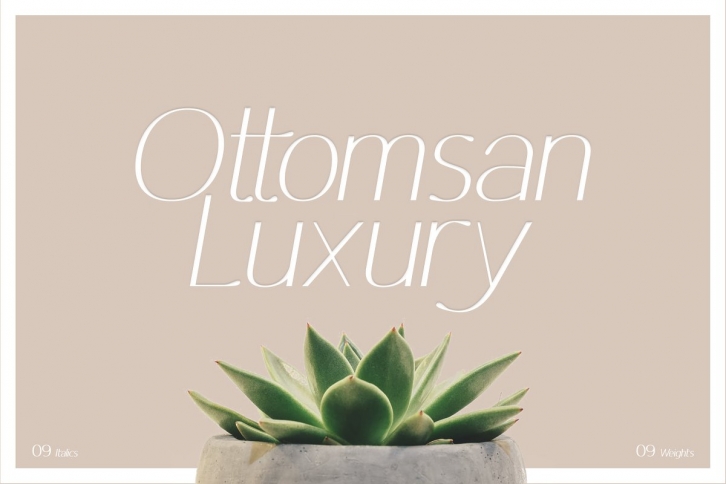
Ottomsan Luxury
Ottomsan is a modern Luxury typeface very much suitable for Film Posters, headlines, Wedding designs, display designs, Logo Designs, Big Banners. Classic & Decorative Typography Web Designs.
- 09 Font Weights
- 09 Italics Weights
- uppercase and lowercase letters
- multi-language support
- Alternatives
- numbers
- punctuation
- ligatures